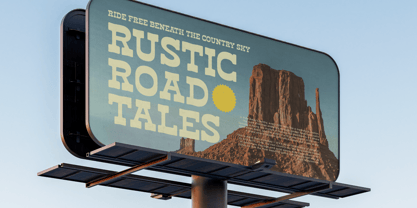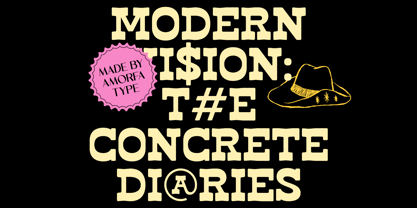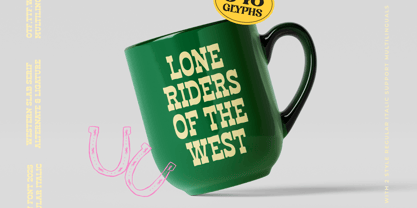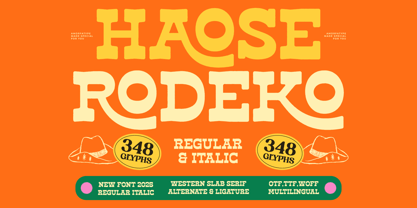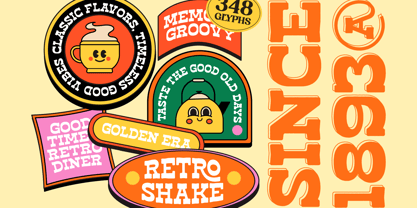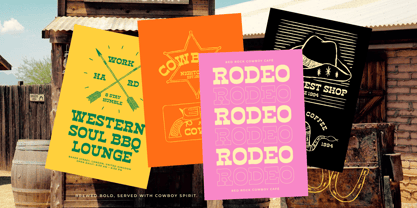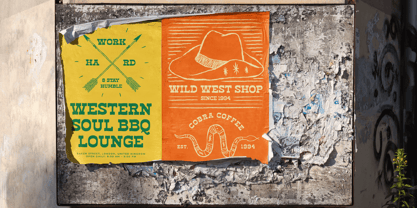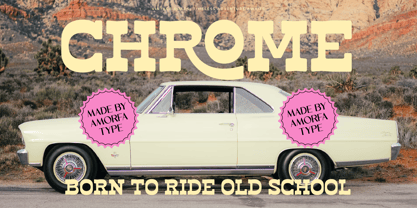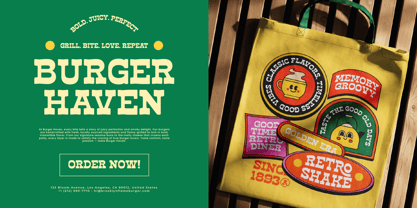
Haose Rodeko
by Amorfa Type
The Haose Rodeko Font Family was designed by Shiddiq Roihan and published by Amorfa Type. Haose Rodeko contains 2 styles and family package options. More about this family
Haose Rodeko is a bold Western-inspired slab serif font that combines rugged charm with a clean, modern edge. Its strong serifs, geometric precision, and confident letterforms make it ideal for vintage branding, posters, packaging, and editorial titles that need a touch of strength and nostalgia. Designed with versatility in mind, Haose Rodeko offers 348 total glyphs, including 9 alternates and 7 ligatures, giving you creative control to craft distinctive, high-impact typography across both print and digital platforms.
Designers: Shiddiq Roihan
Foundry: Amorfa Type